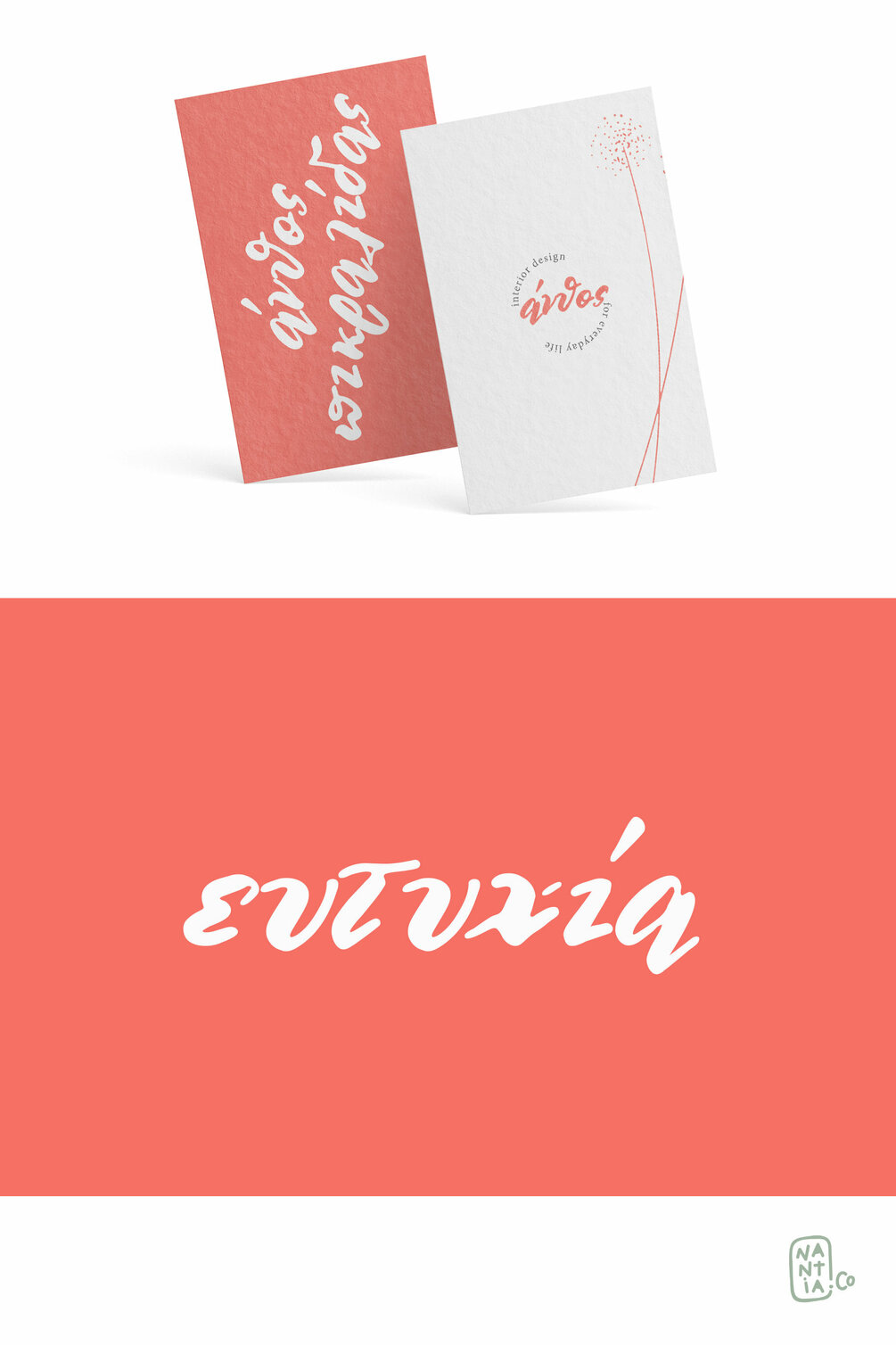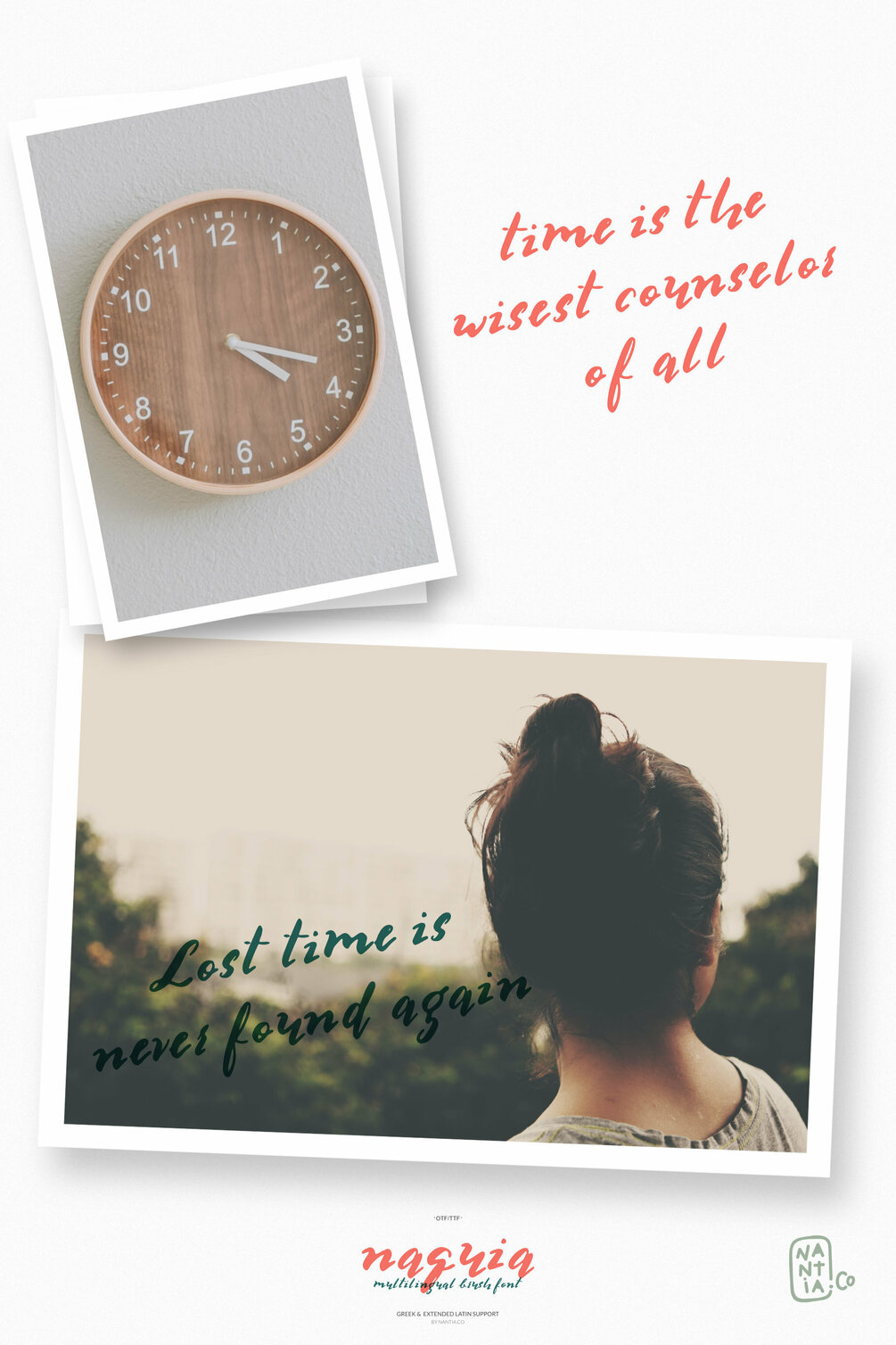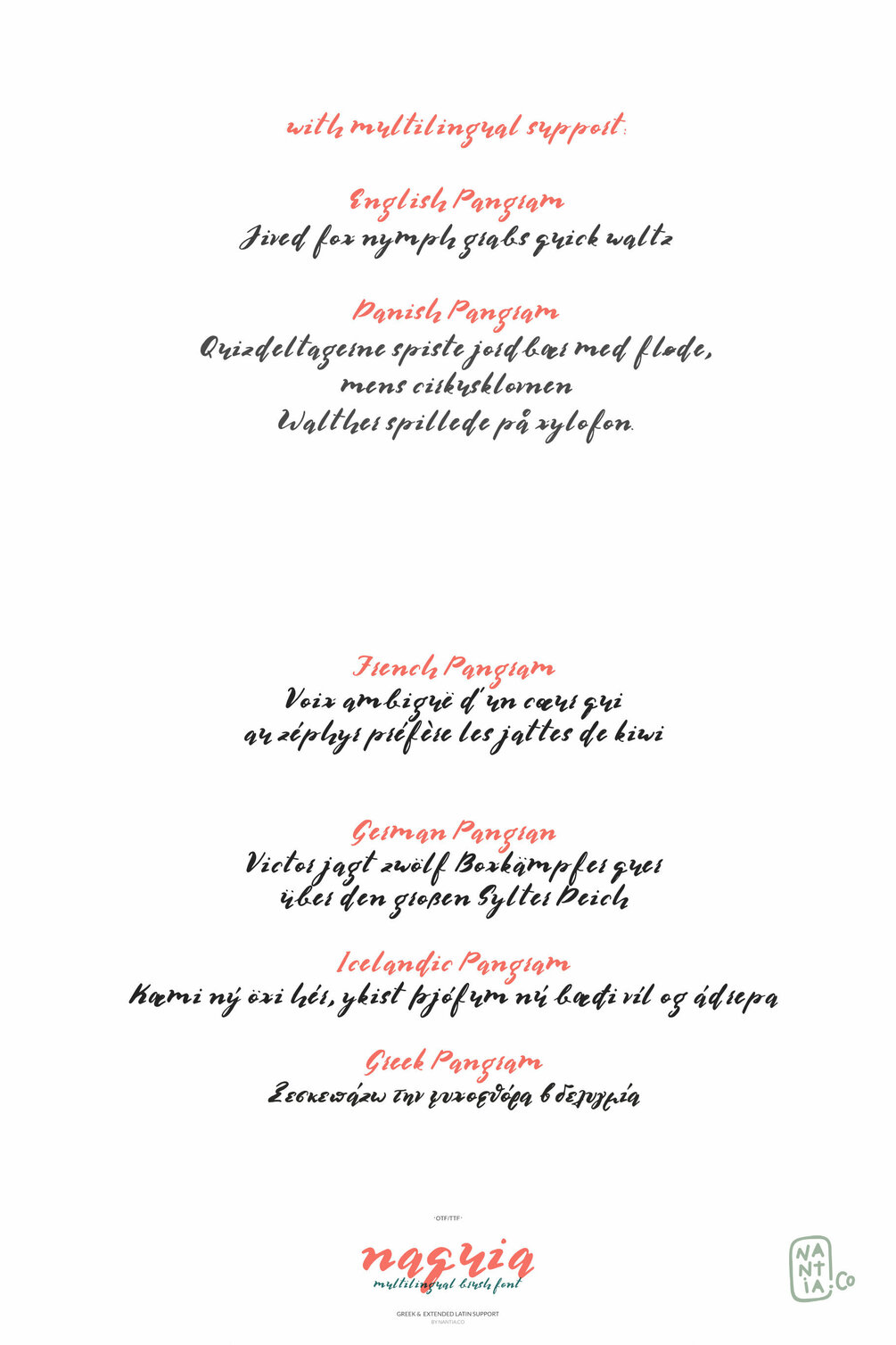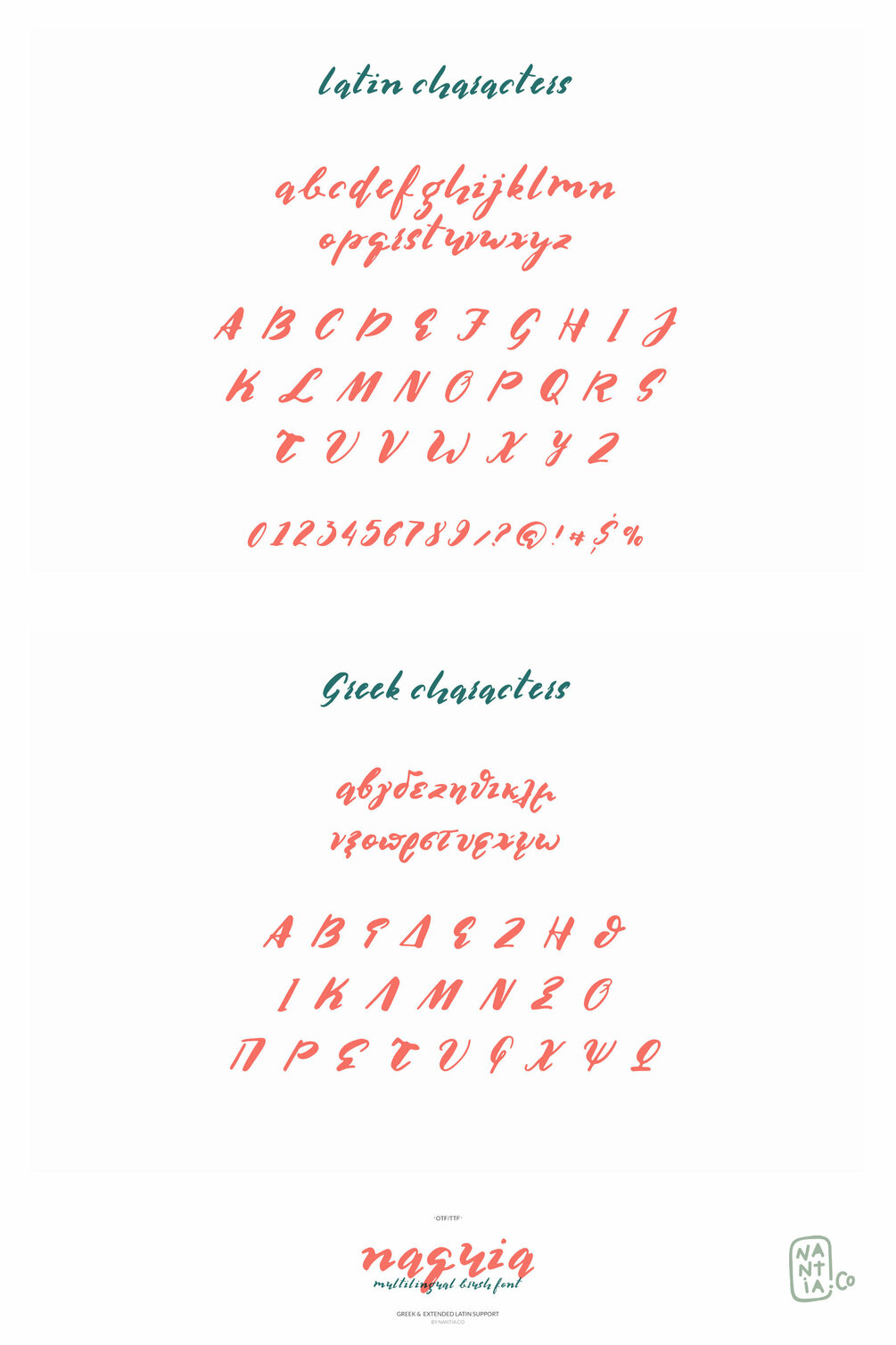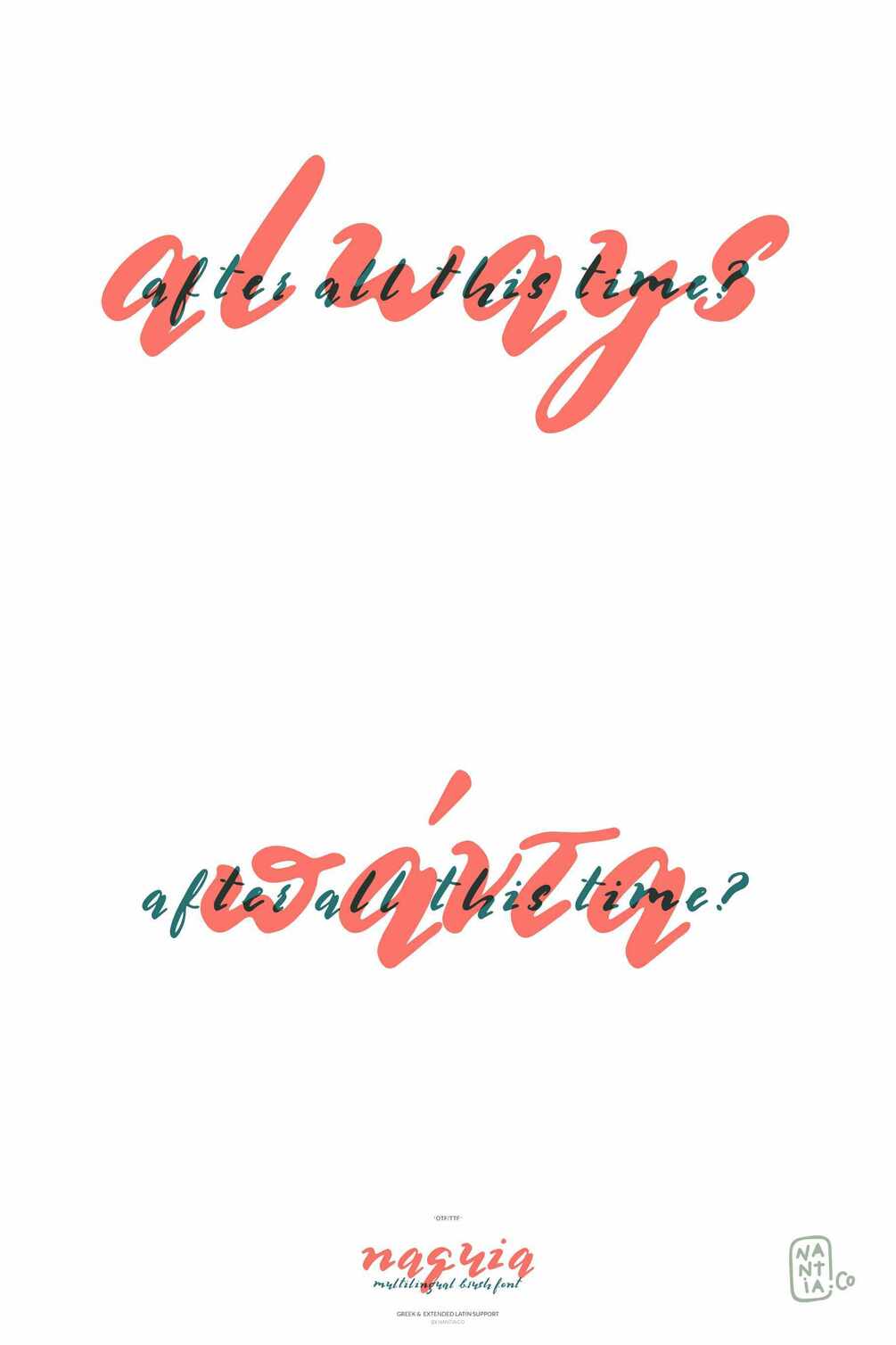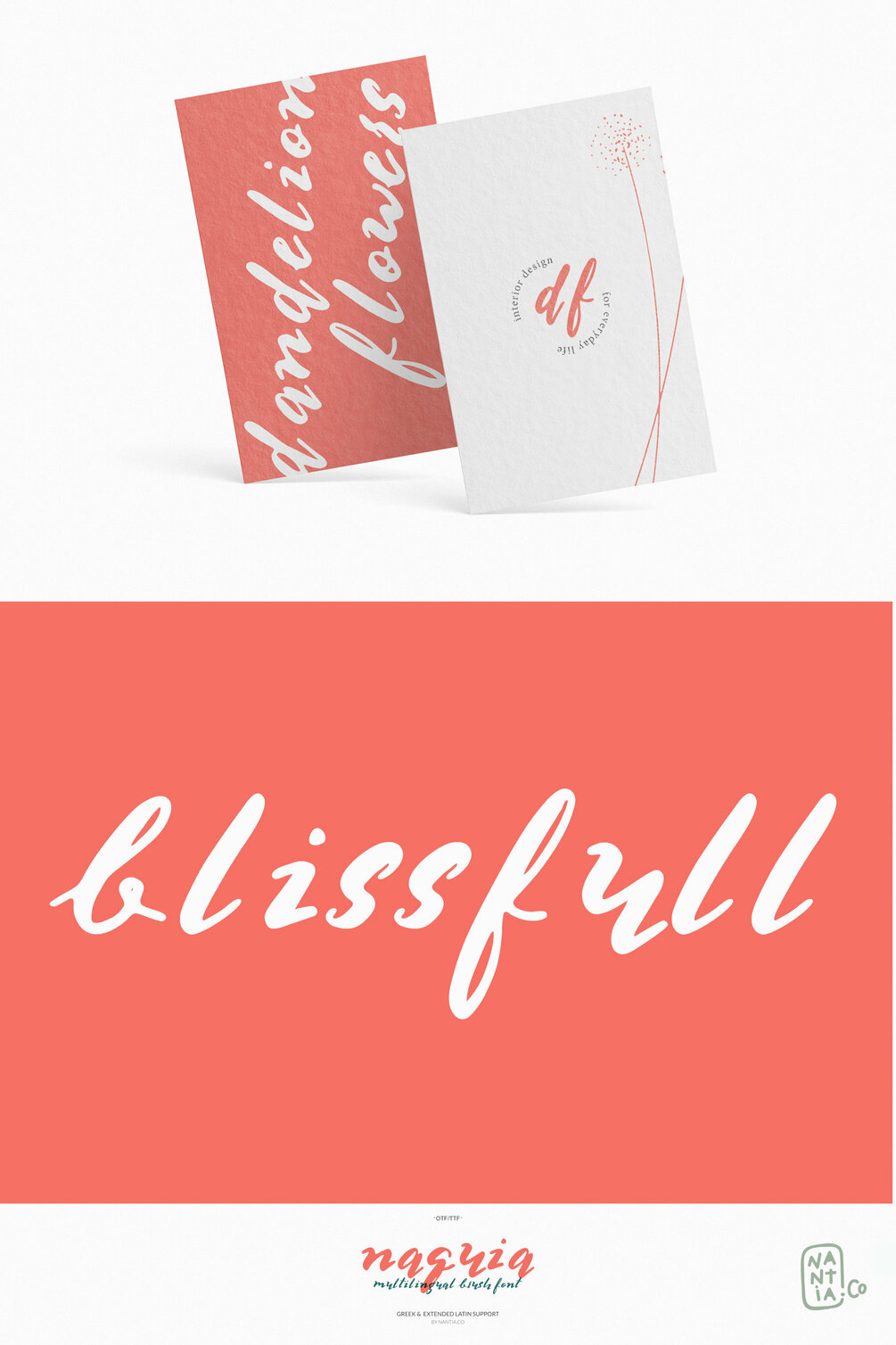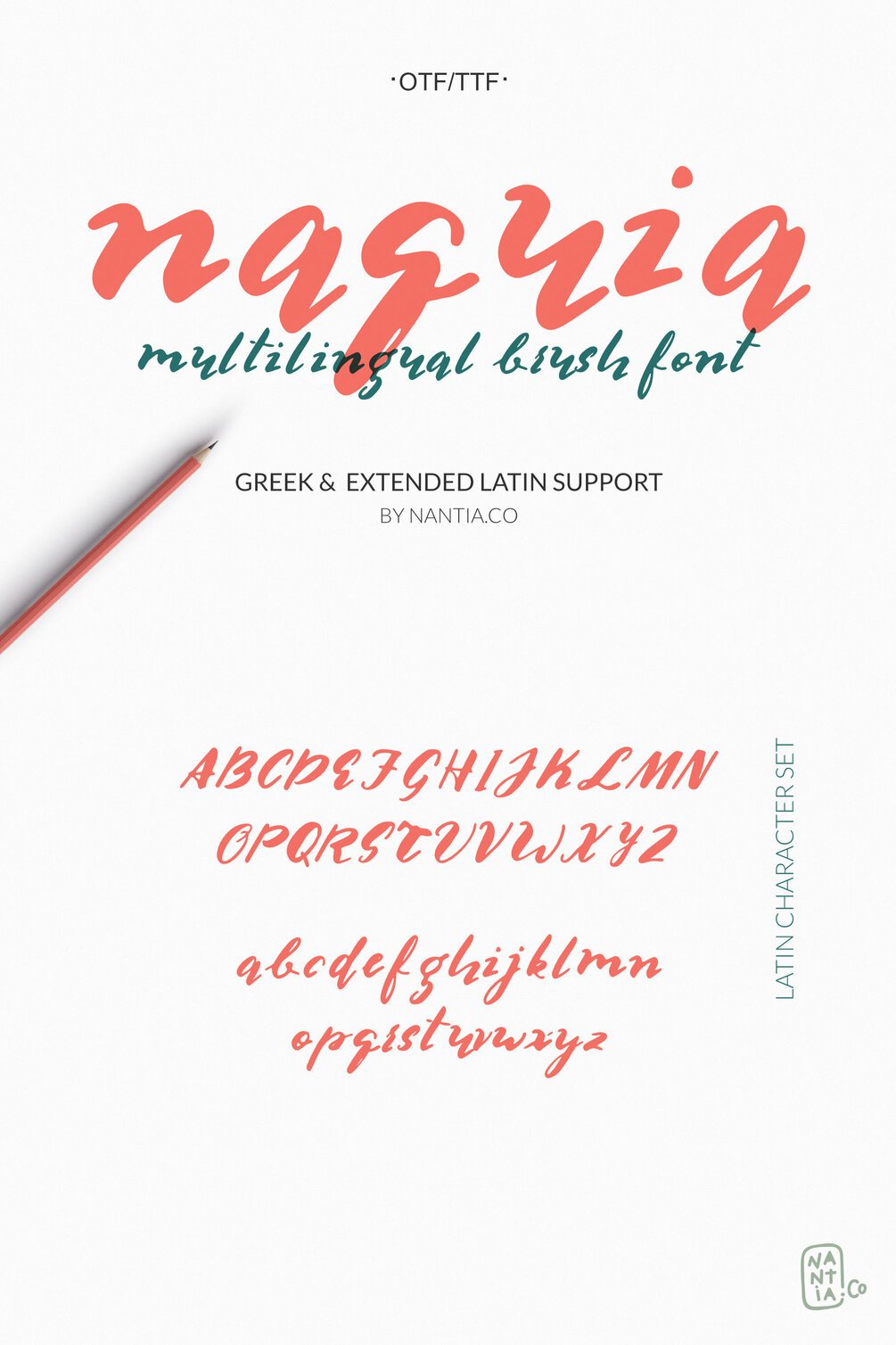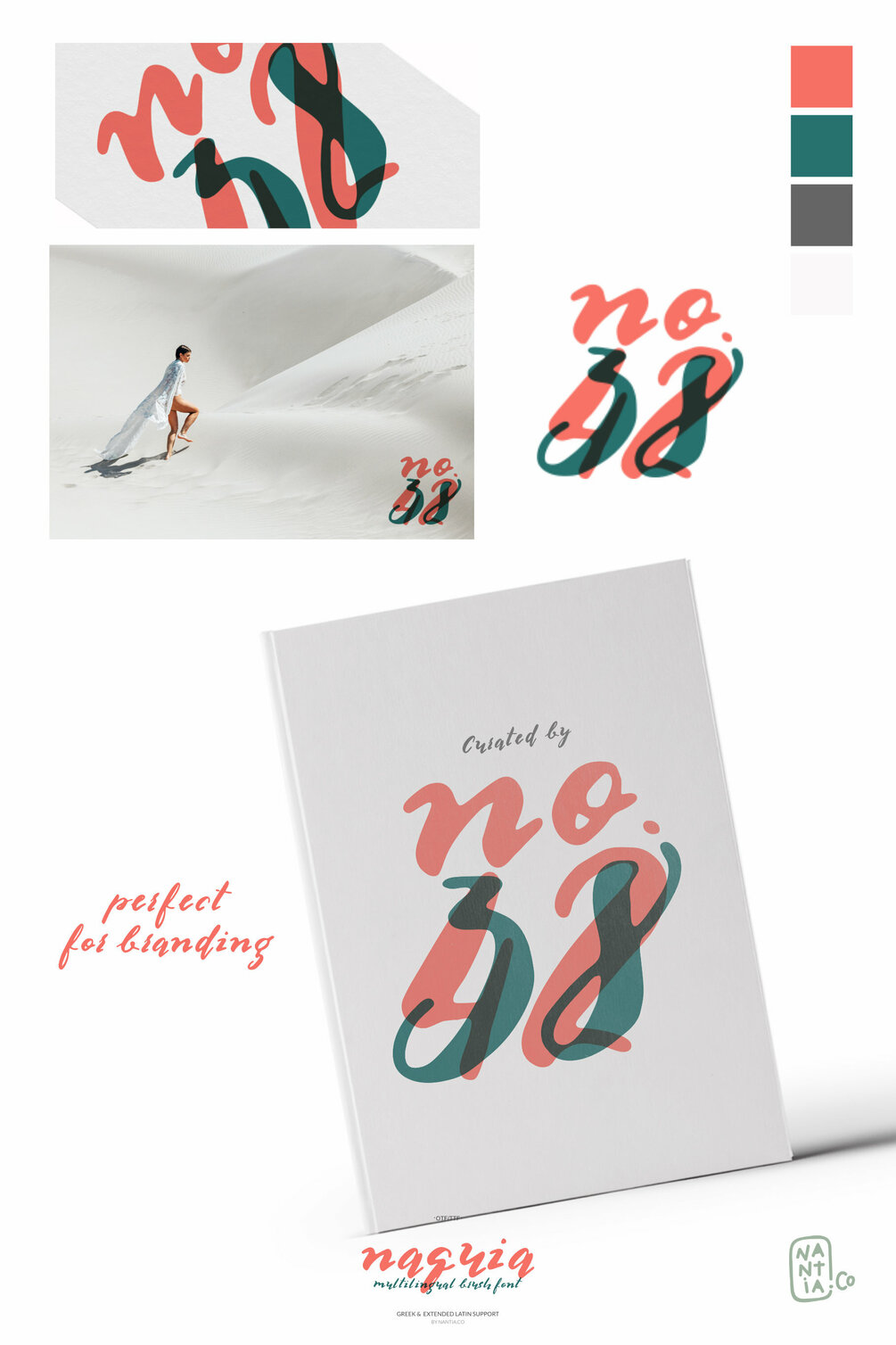
Multilingual Brush Font- Naquia Font
The Naquia Multilingual Brush font is a 100% handcrafted font with which you can achieve a handwritten-type lettering feeling.
This typeface is a multilingual lettering font with Greek (of course), Latin characters and diacritics. The style of the font is perfect for your modern graphic design needs. This font has a really nice flow so you use it in a large text if you want to give them a touch of personality. In addition, this typeface can be used on social media content, for branding or packaging.
- Extended Latin
- Greek
- punctuation marks
- numbers